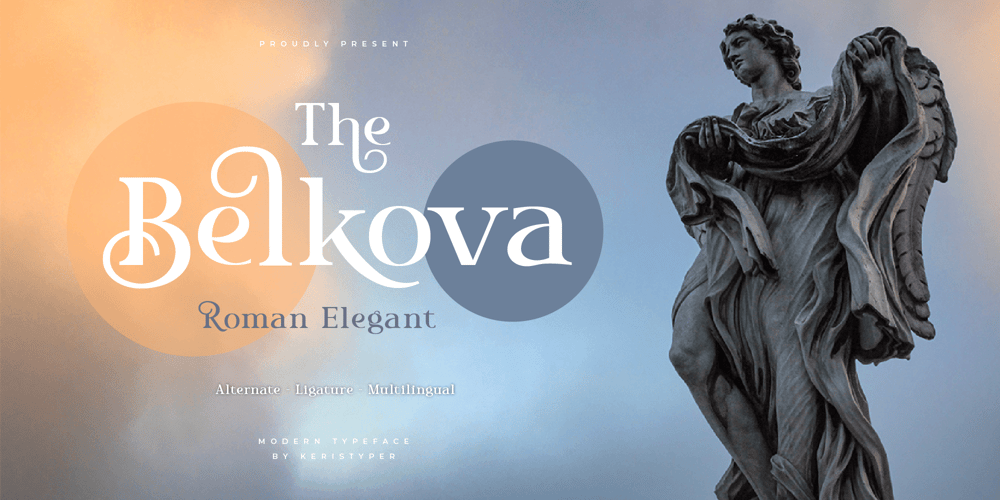
Belkova Font Family was designed by Tezar Tantular and published by Keristyper Studio. Belkova contains 1 styles and family package options. Introducing Belkova serif font with simple, elegant, and authentically inspired by Modern Roman. This font is good for logo design, Social media, Movie Titles, Books Titles, short text even long text letters, and good for your secondary text font with the script, sans, or serif.Featured: Standard Uppercase & Lowercase Numeral & Punctuation Multilingual : ä ö ü Ä Ö Ü ß ¿ ¡ Alternate & Ligature PUA encoded We recommend programs that support the OpenType feature and the Glyphs panel such as Adobe applications or Corel Draw. so you can use all the variations of the glyphs.Hope you enjoy our fonts!